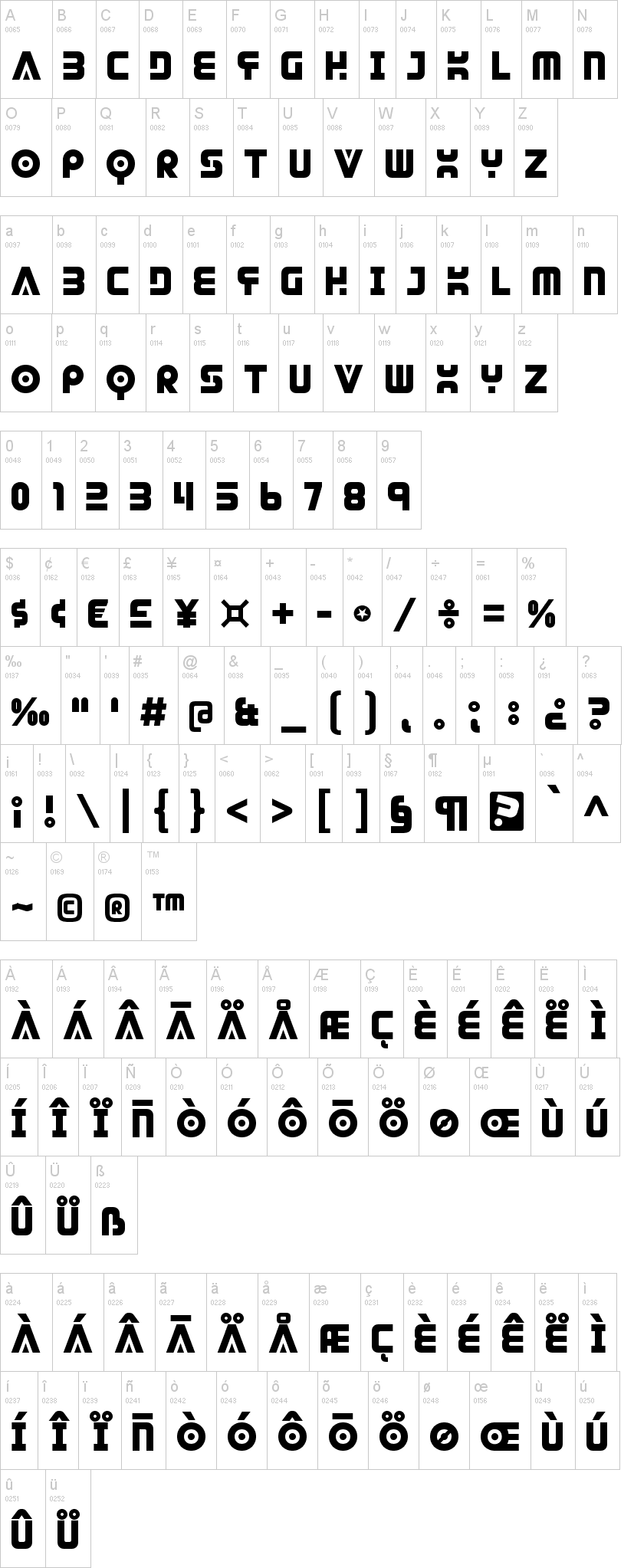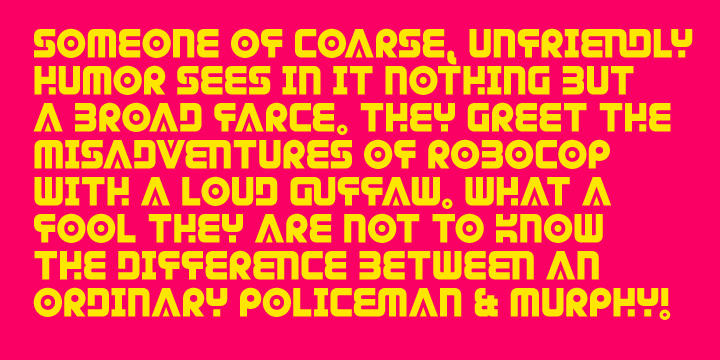
Шрифт Dendritic Voltage
Dendritic Voltage is a techno font inspired by digital trash. In OpenType savvy applications certain letter combinations are automatically replaced by joined letter pairs. The original narrow caps are available in OpenType apps using the 'stylistic alternates' feature. Don't forget to read the files inside the zip for details. Updated in 2012.